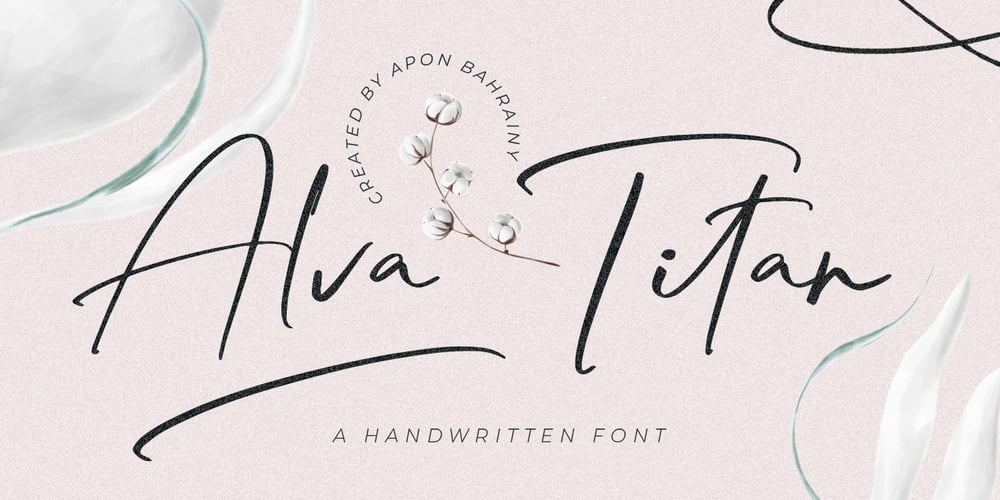
TB Alva Titan Font Family was designed by T. Marjan Bahraini and published by stiplinestudios. TB Alva Titan contains 1 styles and family package options. Hello there..Its a nice to present TB Alva Titan, a fresh handwritten font with ending swash and extra underline ready to use for any design needs. And recomended for daily quotes, custom logo, title, poster, headline, social media post, invitation, packaging and other design projects.Your Support – Stipline Studios